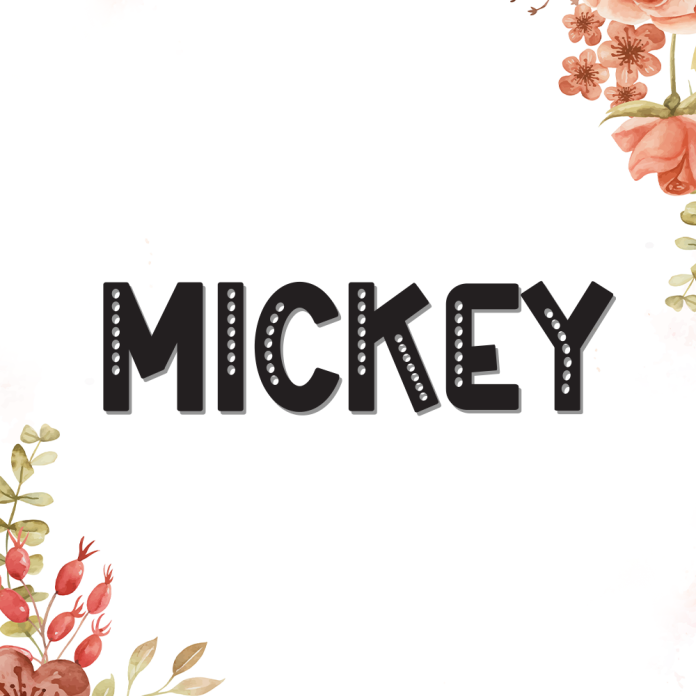
Mickey is a fun and energetic display font bursting with character. With its bold lines, bubbly shapes, and cartoon-inspired charm, this font is perfect for playful projects that need to stand out with joy and personality.
Ideal for kids’ content, party invitations, merchandise, comics, and eye-catching branding, Mickey adds a touch of whimsy and wonder to every word.
Bold, rounded display style
Fun and friendly character design
Perfect for children's themes, headlines, logos, and playful graphics
Let your creativity shine with Mickey — a display font full of charm, cheer, and childhood magic.